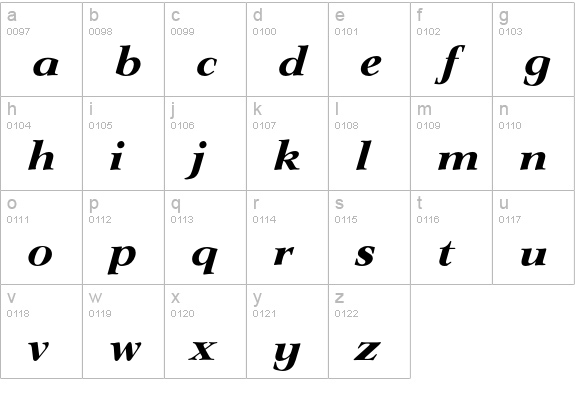
Lingwood-BoldIta font is a striking and elegant typeface that exudes sophistication and style. Its bold and italic design makes it perfect for adding a touch of flair to any project. The sharp, clean lines of this font make it ideal for headings, titles, and other display purposes. What sets Lingwood-BoldIta font apart is not only its stunning design but also the fact that it is completely free to download. You can easily access this fantastic font at FontsMarket.com, where you can enhance your designs with this versatile and eye-catching typeface. Whether you're working on a branding project, a website design, or any other creative endeavor, Lingwood-BoldIta font is sure to make a bold statement and leave a lasting impression. Download it today and elevate your designs to the next level!